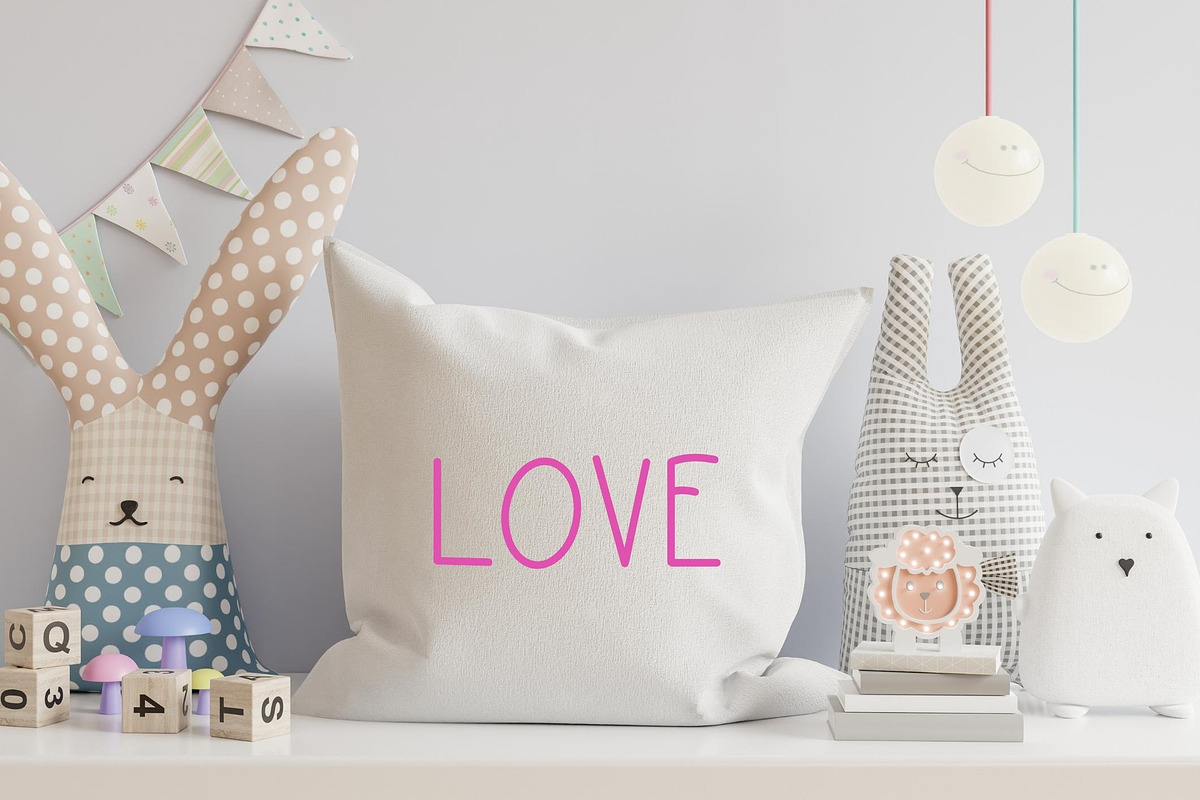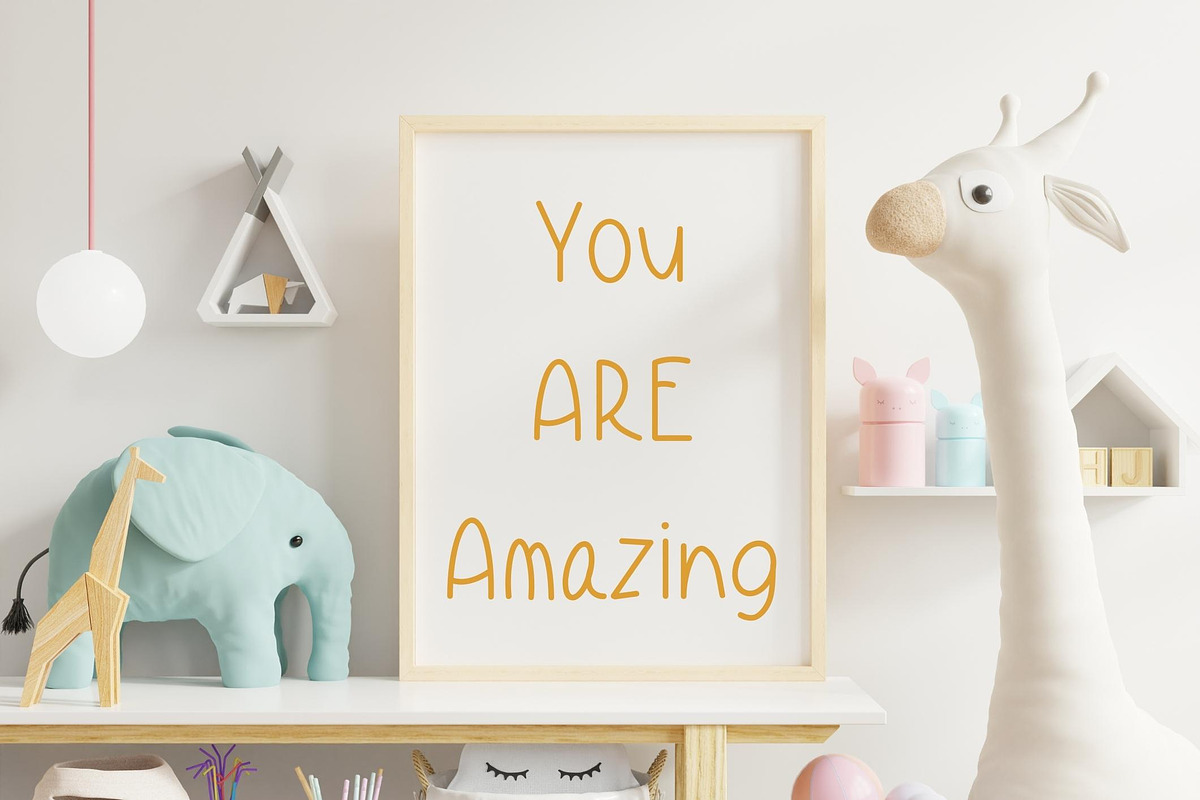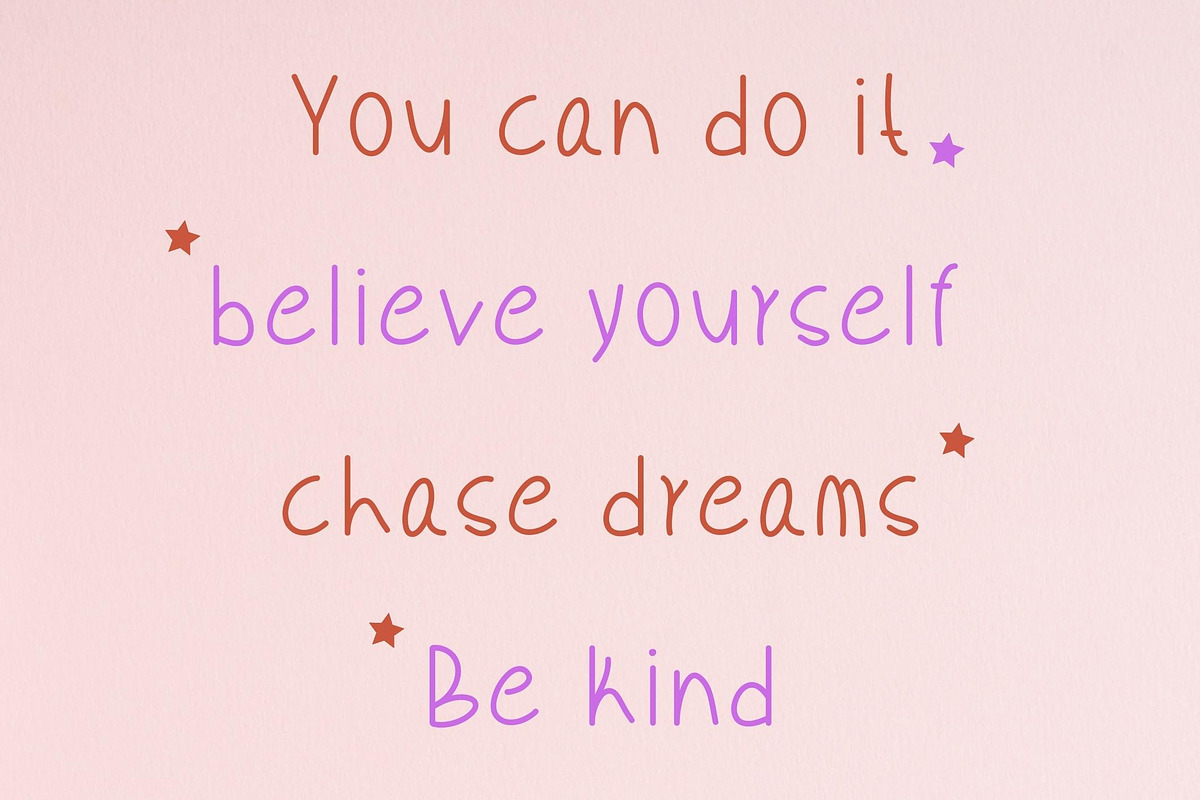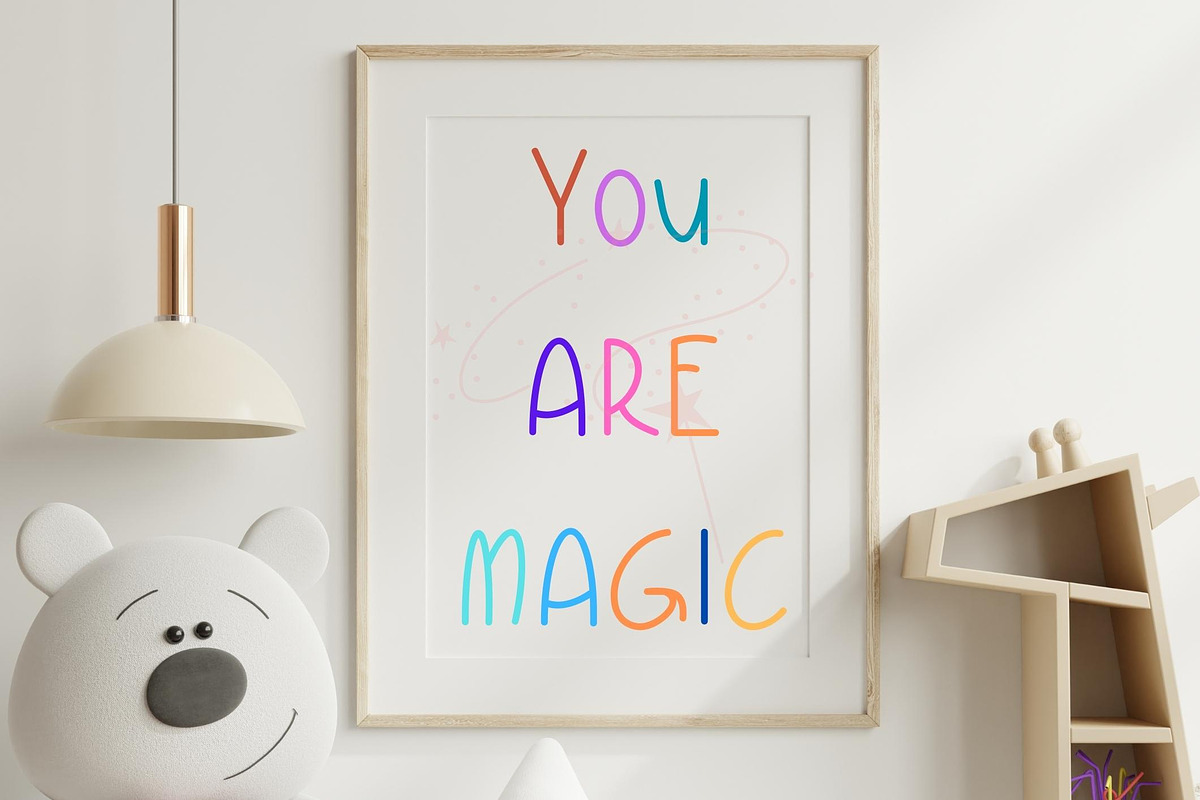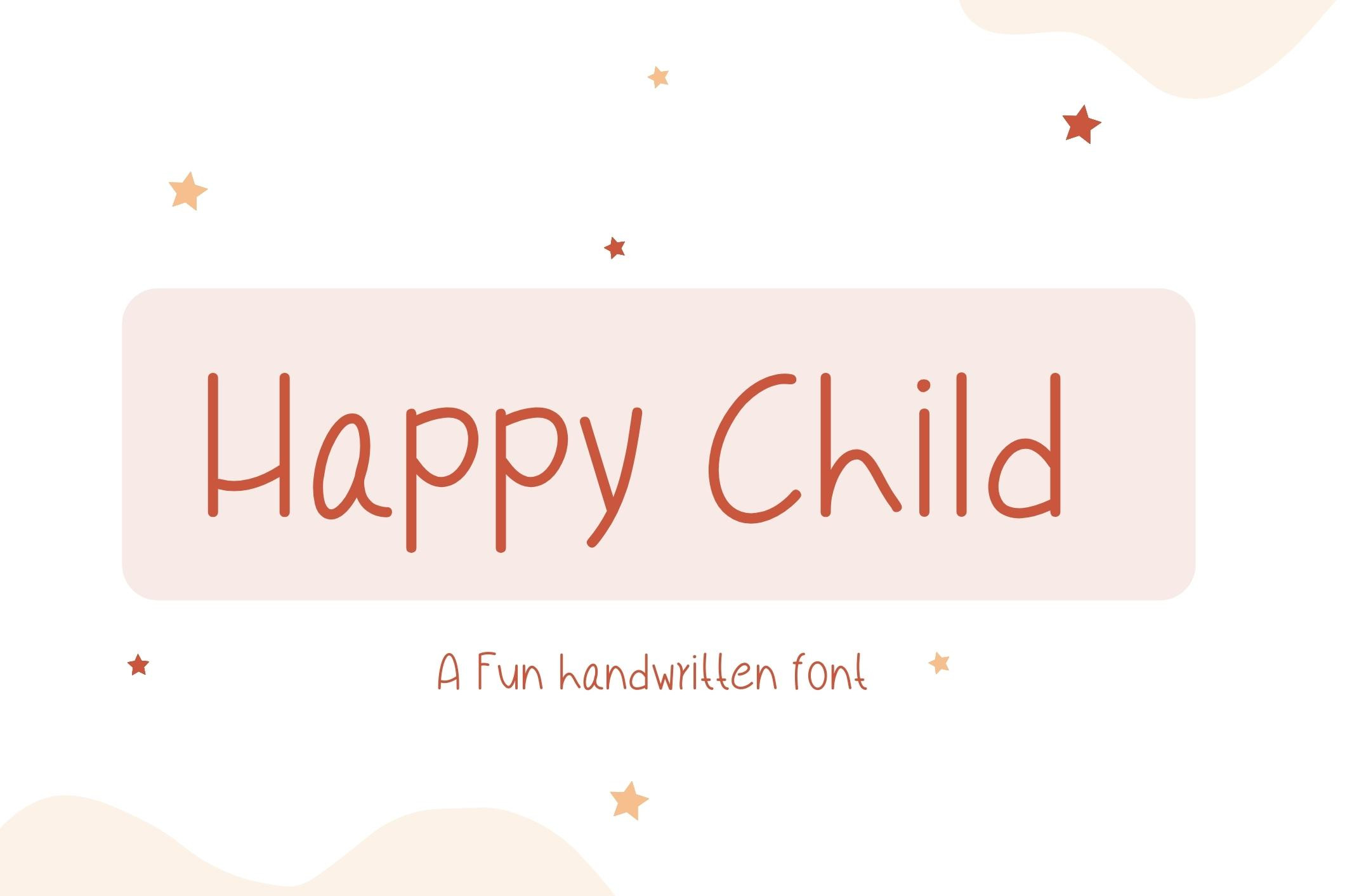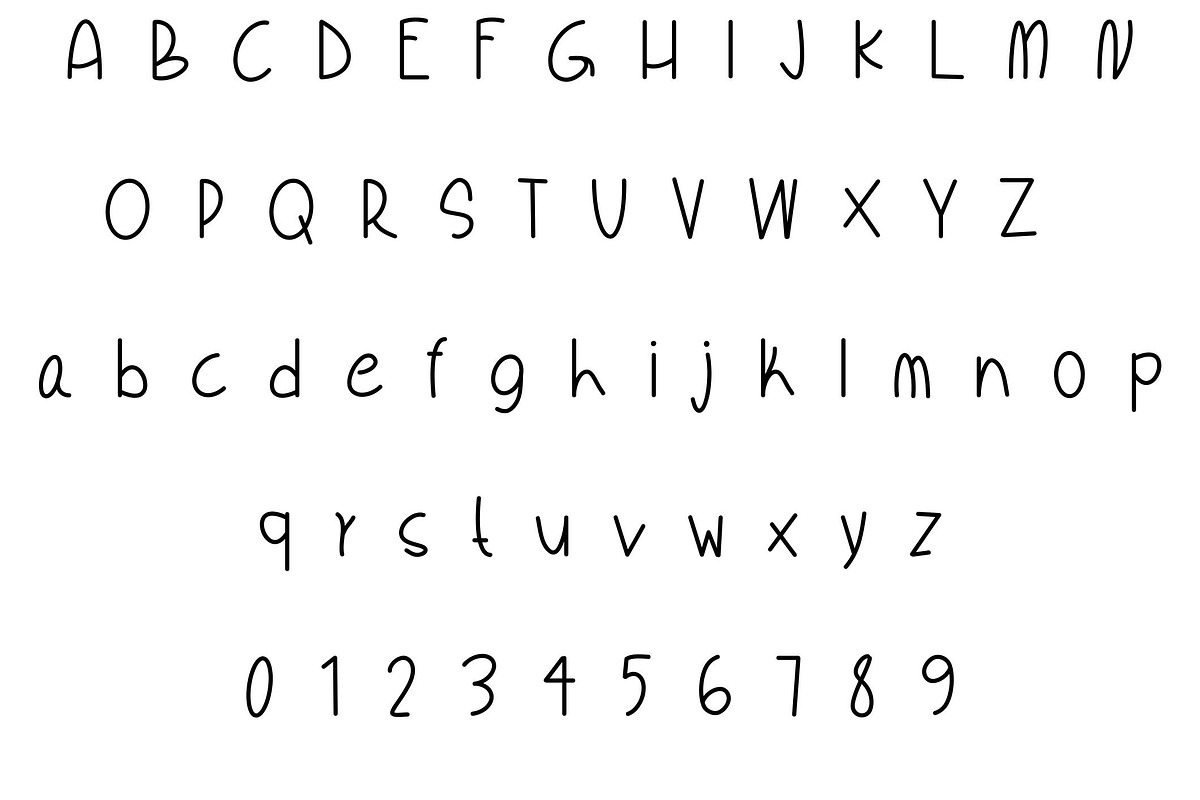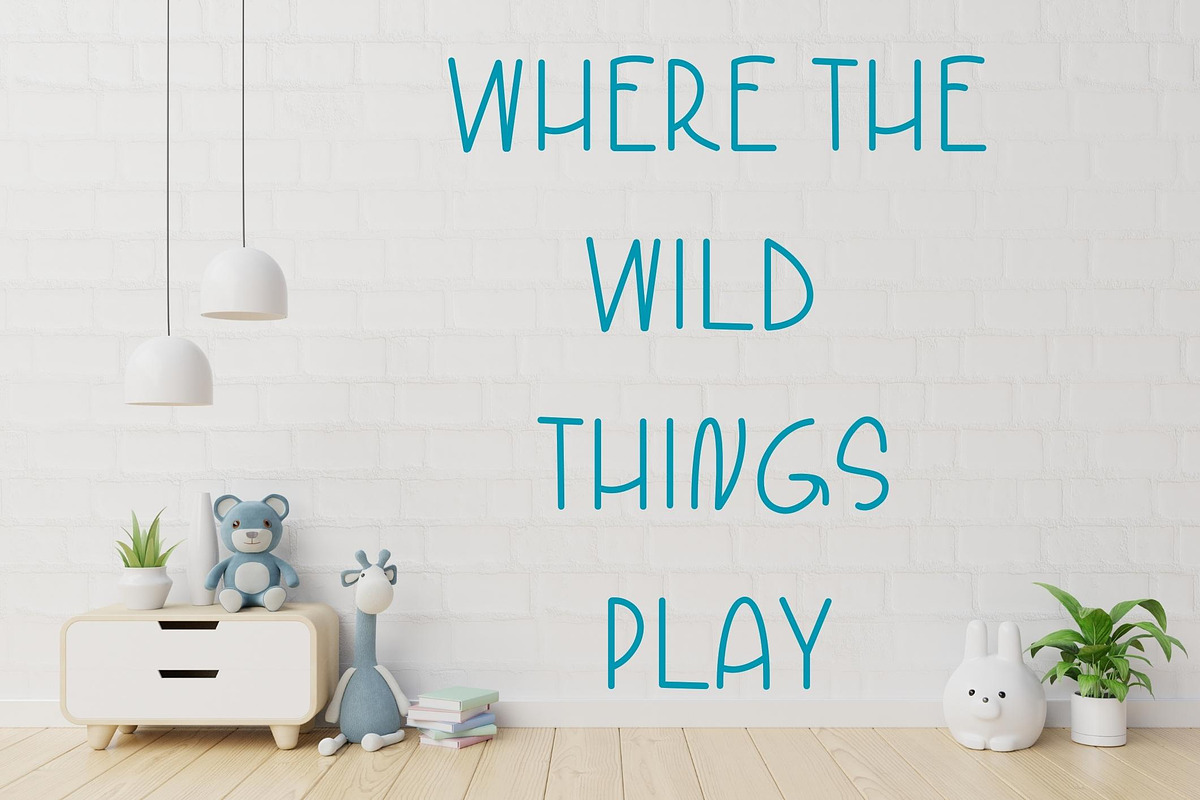
Happy child - A Handwritten font
Happy child - Handwritten playful font
It’s perfect for teacher projects, notes, planners, shirt designs, announcements, Cricut, kids room decor and even more for your creative projects.